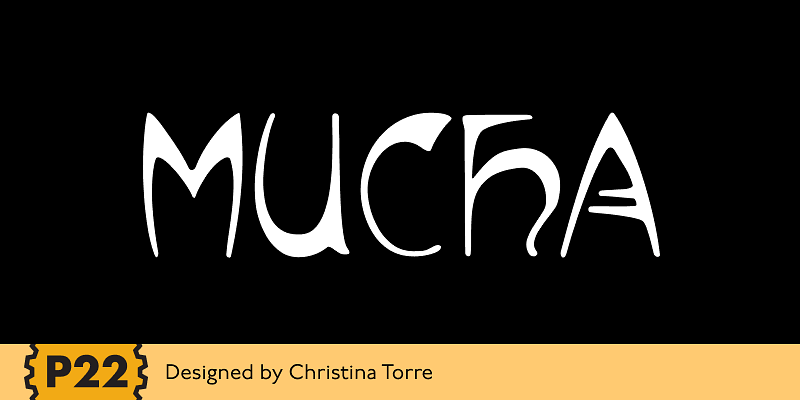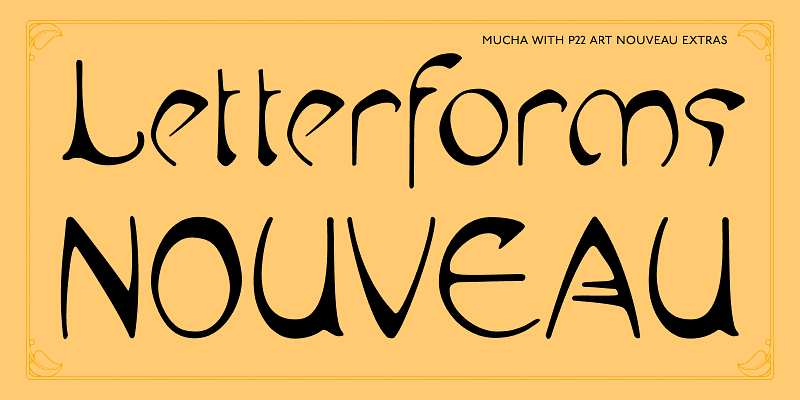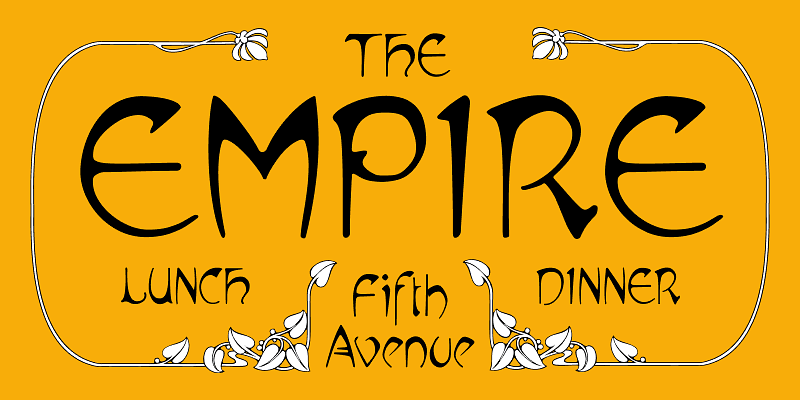
P22 Mucha is a display typeface capturing the elegant, free-flowing lettering style of Art Nouveau. Drawing inspiration from the work of Alfons Mucha circa 1900, it adapts its curving forms and delicate flair, giving it a lyrical, ornamental quality that feels historical and imaginative. Distinctly organic and evoking the essence of fin de siècle Paris and Prague, it is ideal for invitations, boutique branding, museum ephemera, or editorial spreads with a decorative edge.